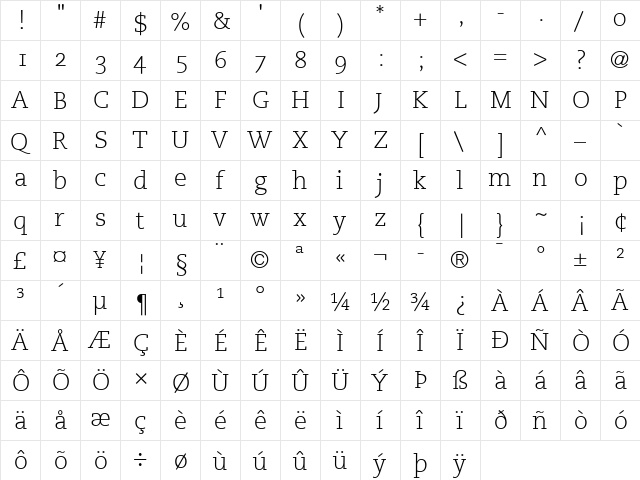
Caecilia LightOsF Regular
Design Context for Caecilia LightOsF Typeface
Caecilia LightOsF takes a measured approach to typography — its balanced proportions and neutral character make it a reliable workhorse for both digital and print work. The delicate stroke weight brings airiness and refinement to layouts.